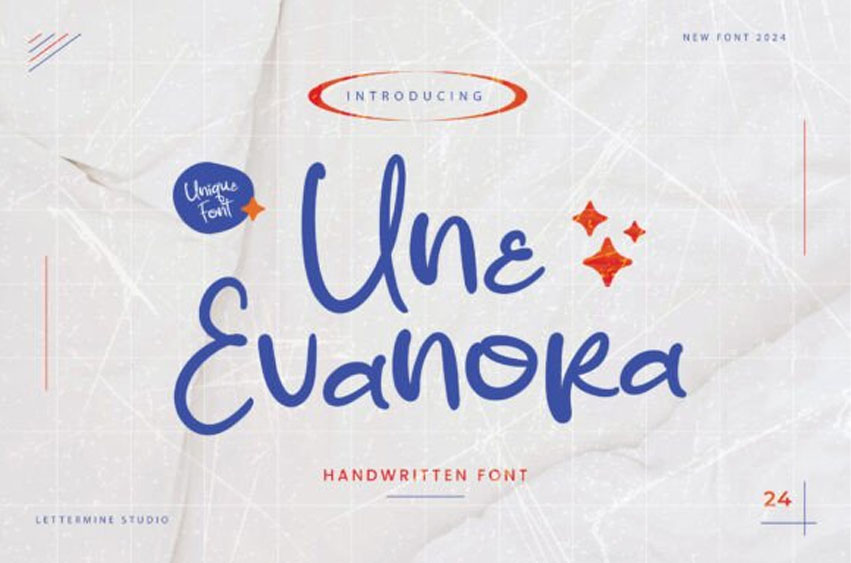
Une Evanora Font
Une Evanora Font is a charming Script Handwritten font designed to add a touch of elegance and personality to your creative projects.
It fits in headlines, logos, posters, flyers, invitations, name cards, branding materials, print media, editorial layouts, and many more.